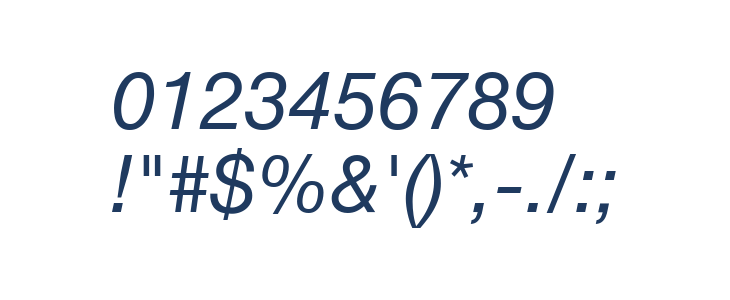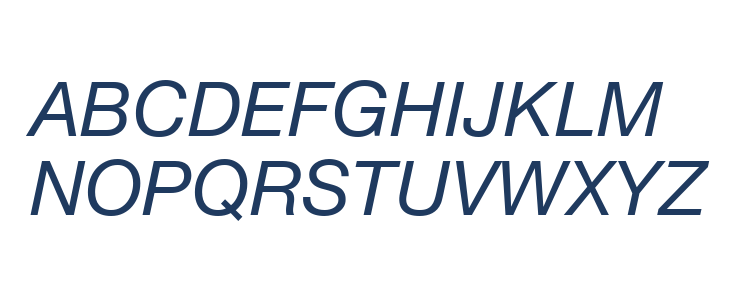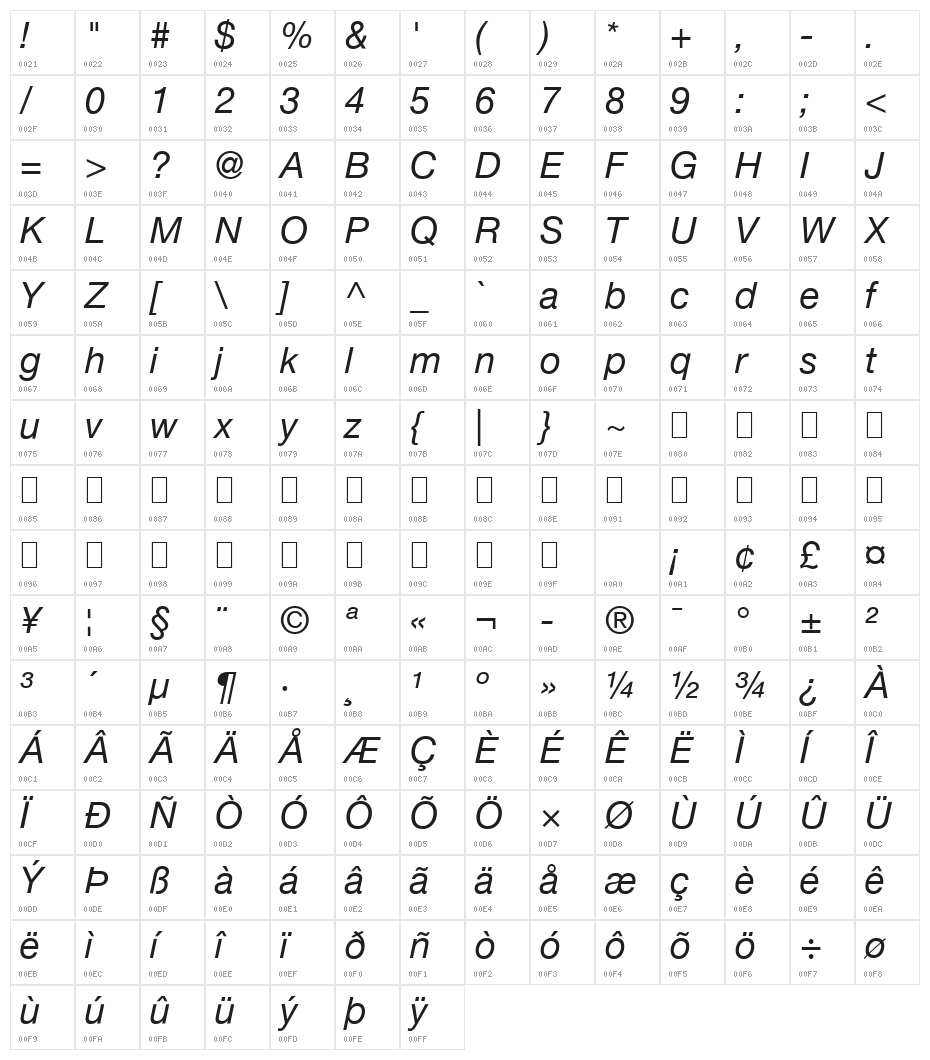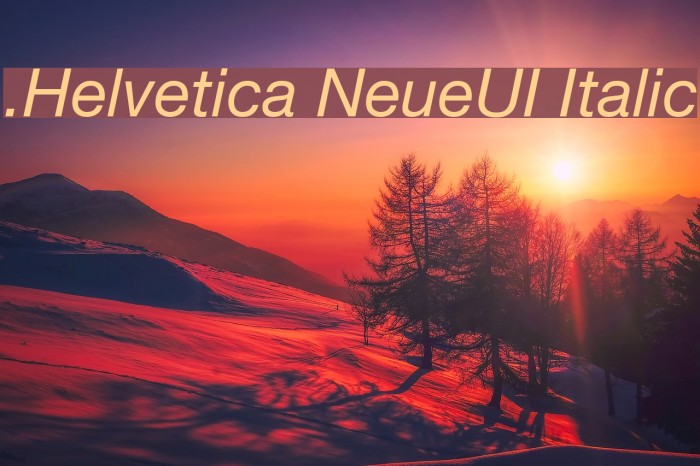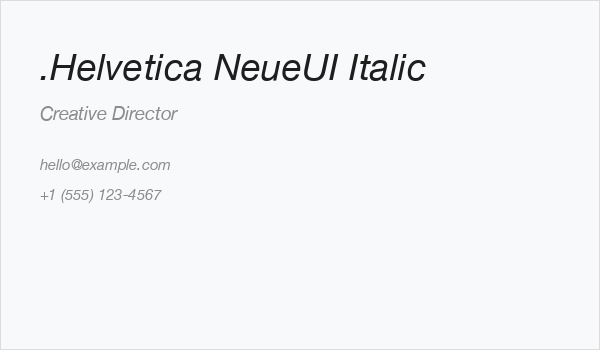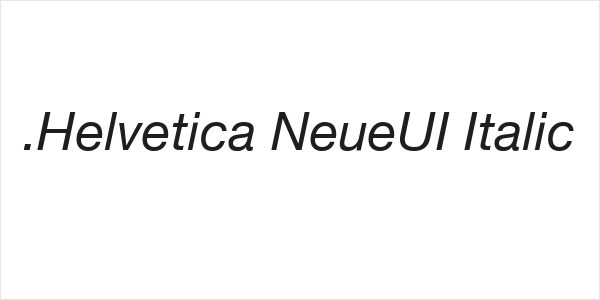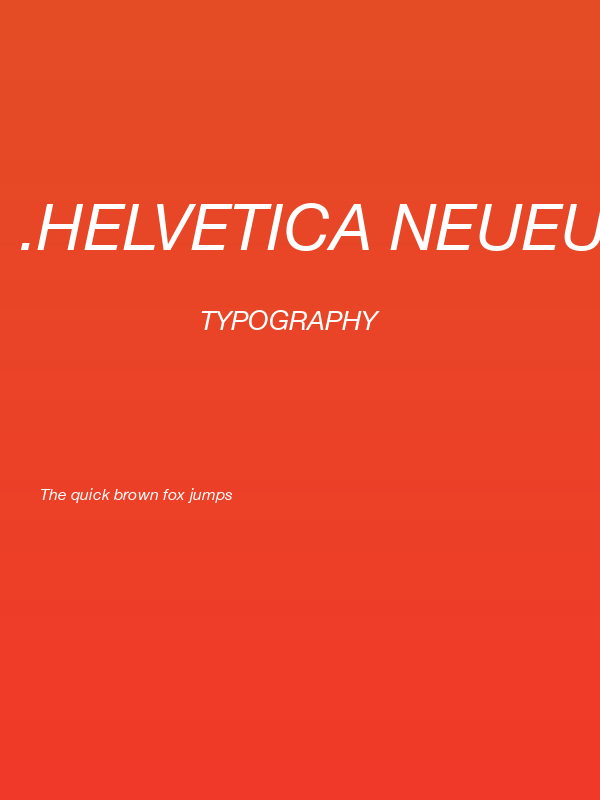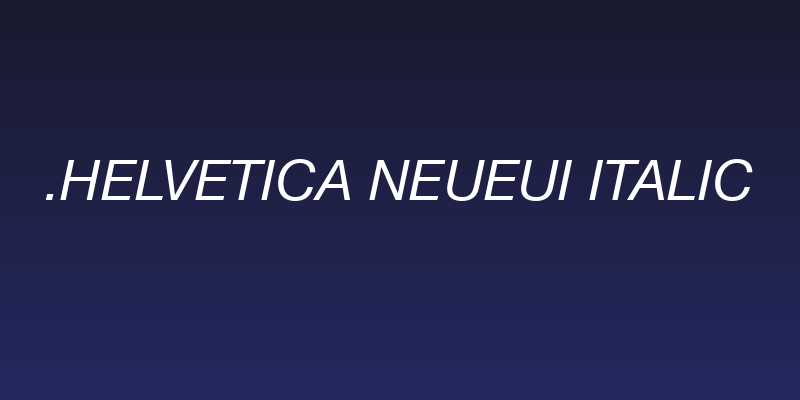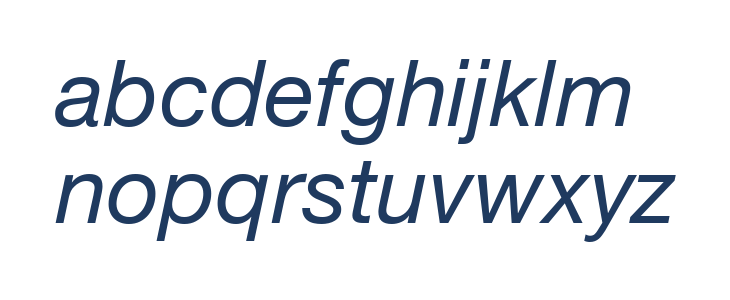
.Helvetica NeueUI Italic Font
.Helvetica NeueUI Italic Description
This typeface features a clean and modern design with smooth curves and a slight slant, giving it an elegant and contemporary appearance. The characters are well-proportioned, with a consistent stroke width that maintains readability across various sizes. The italic style adds a dynamic and sophisticated touch, making it suitable for both formal and casual contexts. The numerals are clear and distinct, while the special characters are well-integrated, ensuring versatility in design applications.